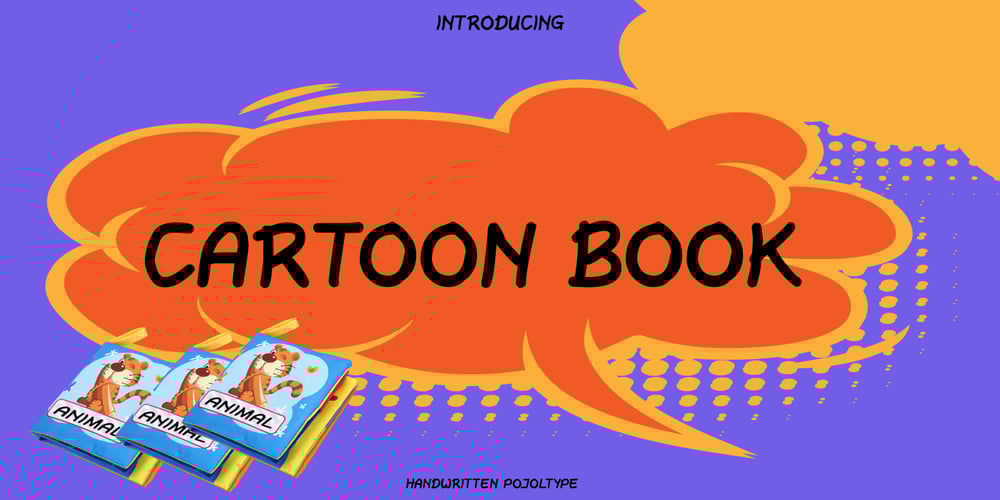
Cartoon Book
Cartoon Book font
Cartoon Book Font Family was designed by Fauzul Azmi and published by PojolType. Cartoon Book contains 1 styles and family package options. I made this cartoon book font in my own handwriting. This type of font is great for writing comic stories, children’s games, and is perfect for making cartoon movies.